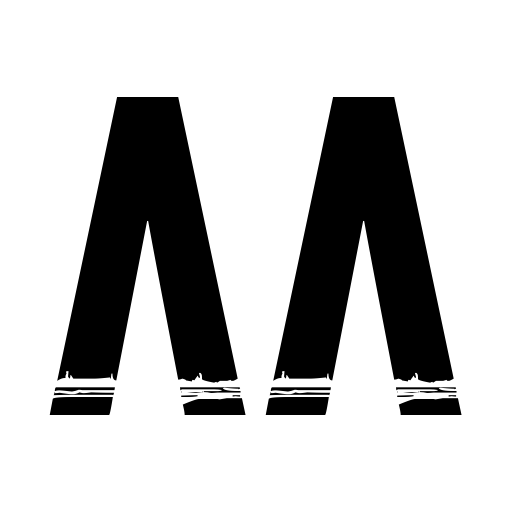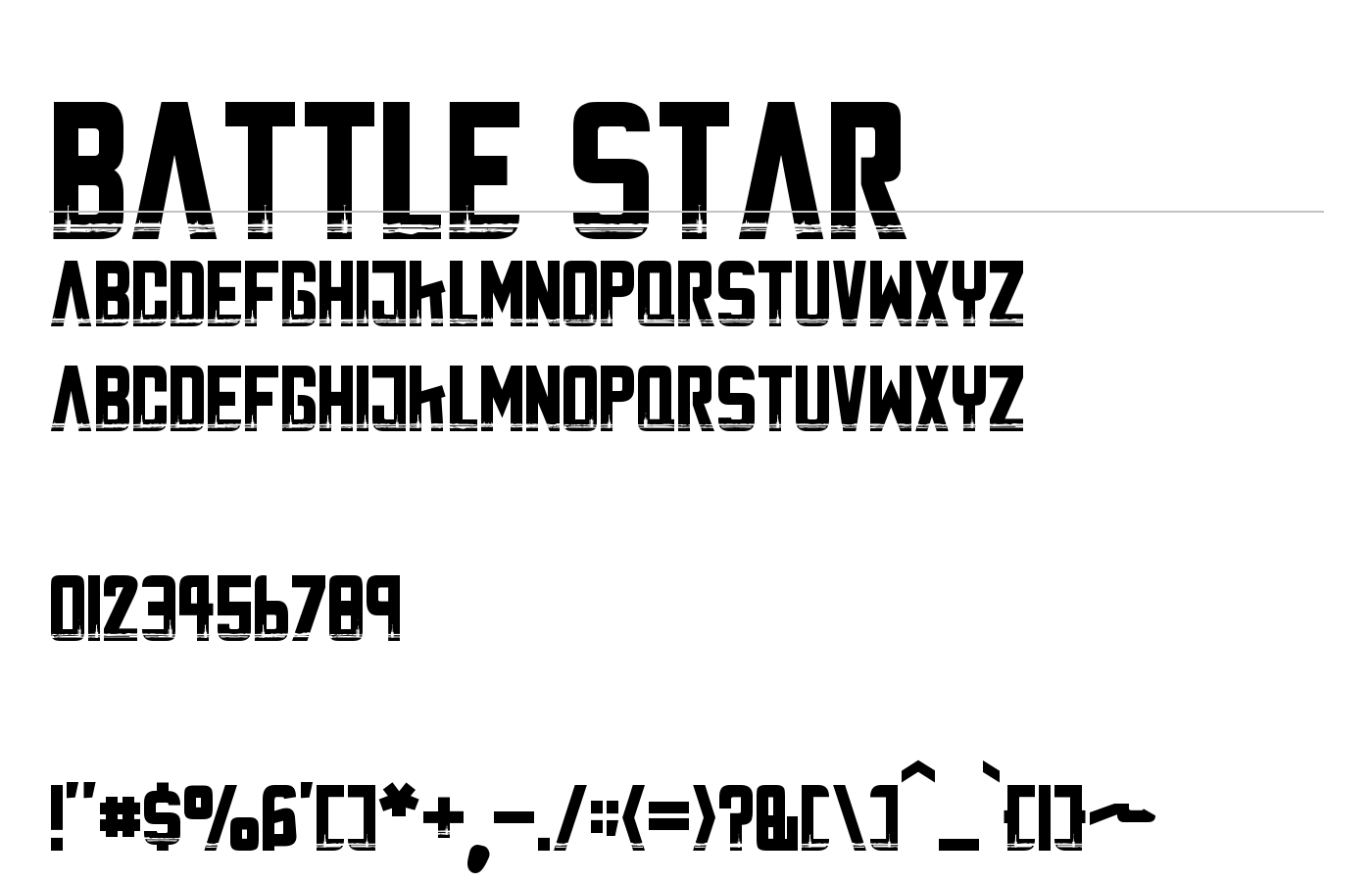
Battle Star is a bold, condensed sans serif font with a strong, modern military vibe. Its tall, blocky letterforms carry sharp edges and a distressed, glitch-like effect at the bottom, giving it an intense, rugged personality perfect for impactful headlines, posters, or branding that needs a powerful, futuristic look. This font works well in designs aiming for a bold, commanding presence with an urban or sci-fi edge.
Battle Star Font
About Battle Star Font